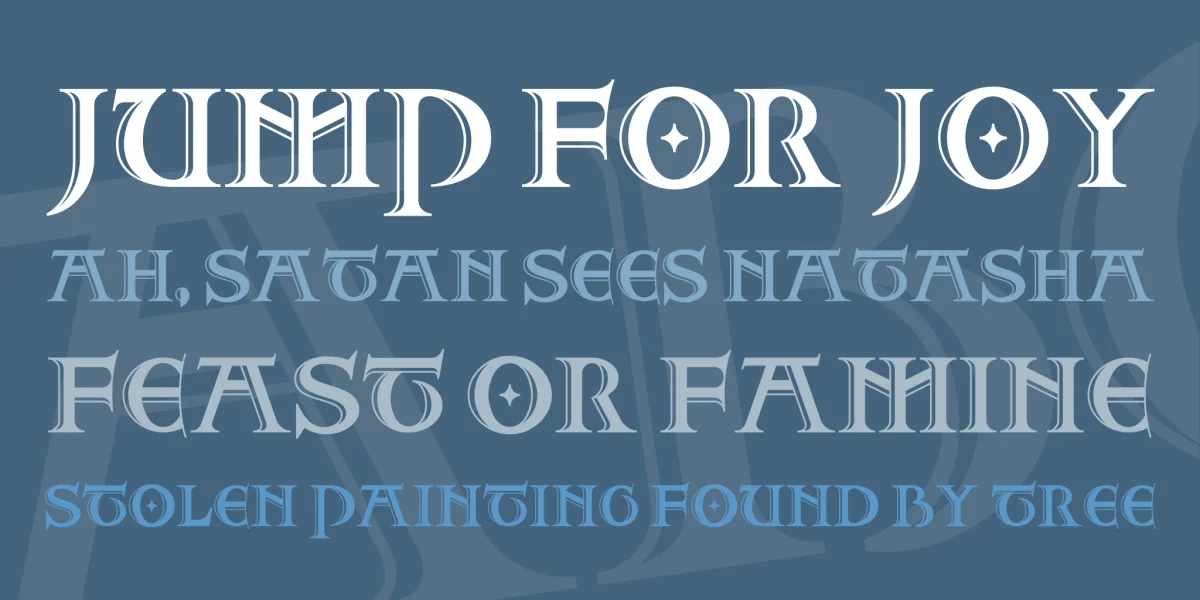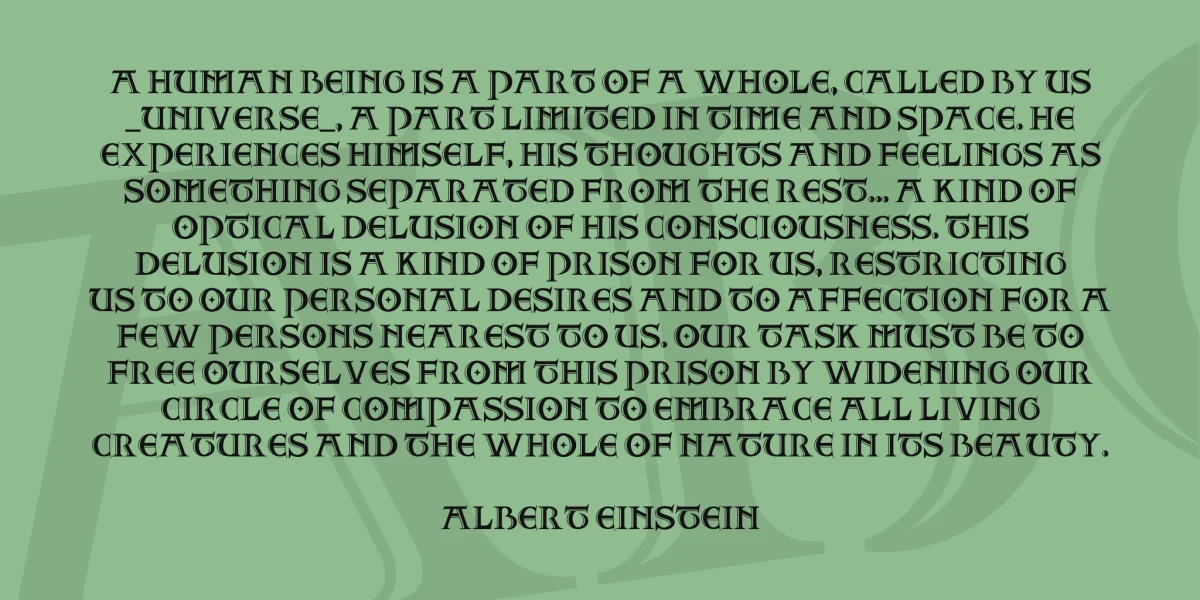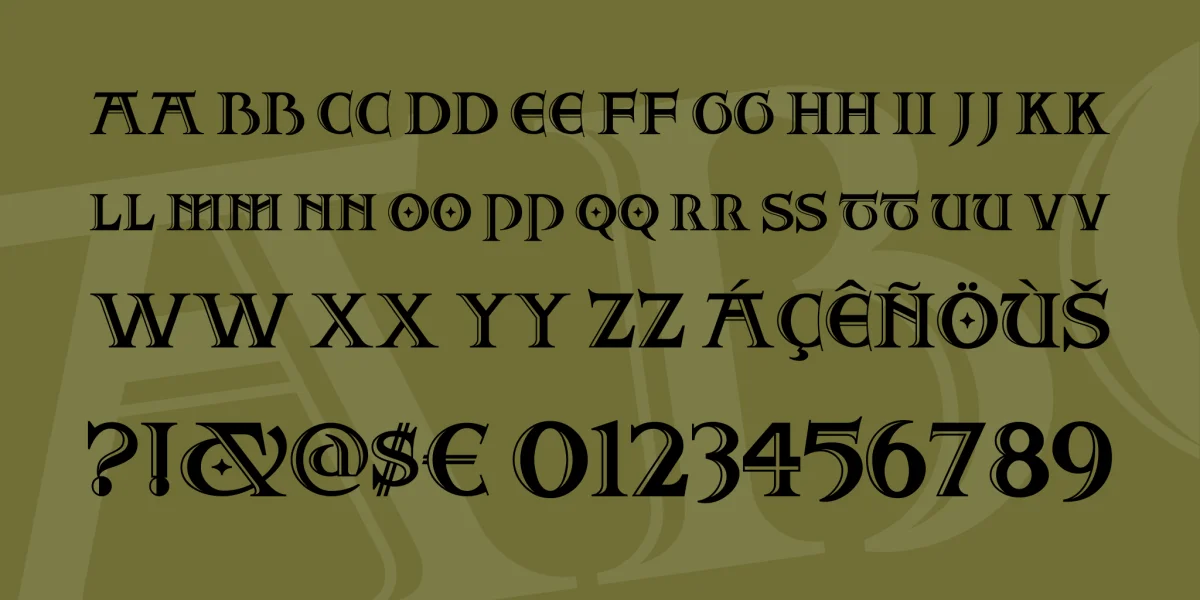
Sorry — I wasn’t taking very good notes the day I came across the inspiration for this font, but I did note that it was based on an old Catalan typeface. The name is taken from some shtick remembered from a 1960s TV commercial for Texas Giant Furniture. “Now, that’s one for Pedro, and …”